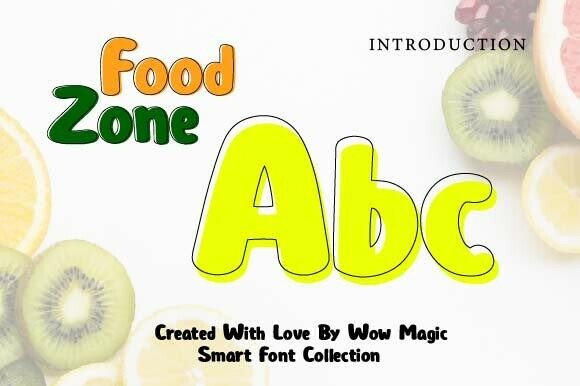
Introduction to Food Zone Font
Food Zone – Fun Bold Display Font Food Zone is a fun bold display font with a playful, friendly, and delicious personality.
Designed with soft curves, chunky shapes, and a cheerful handcrafted feel, this typeface is perfect for food-related designs that need to look eye-catching, tasty, and full of charm With its bold and rounded letterforms, Food Zone works beautifully for restaurant branding, café logos, food packaging, menu designs, snack labels, social media promotions, posters, and kids-friendly product visuals.
Key Features of Food Zone Font